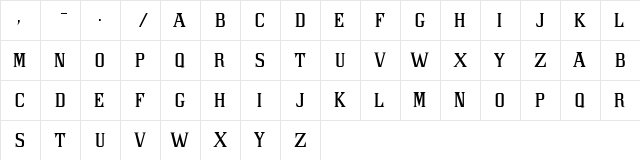
PAC LIBERTAS Font Preview
PAC LIBERTAS PAC LIBERTAS
PAC LIBERTAS Font Details
| Style | PAC LIBERTAS |
| Foundry | Klupsas |
| Designer | Klupsas |
Design Context for PAC LIBERTAS Typeface
PAC LIBERTAS is a composed and adaptable typeface that performs quietly and consistently across a wide range of design contexts.